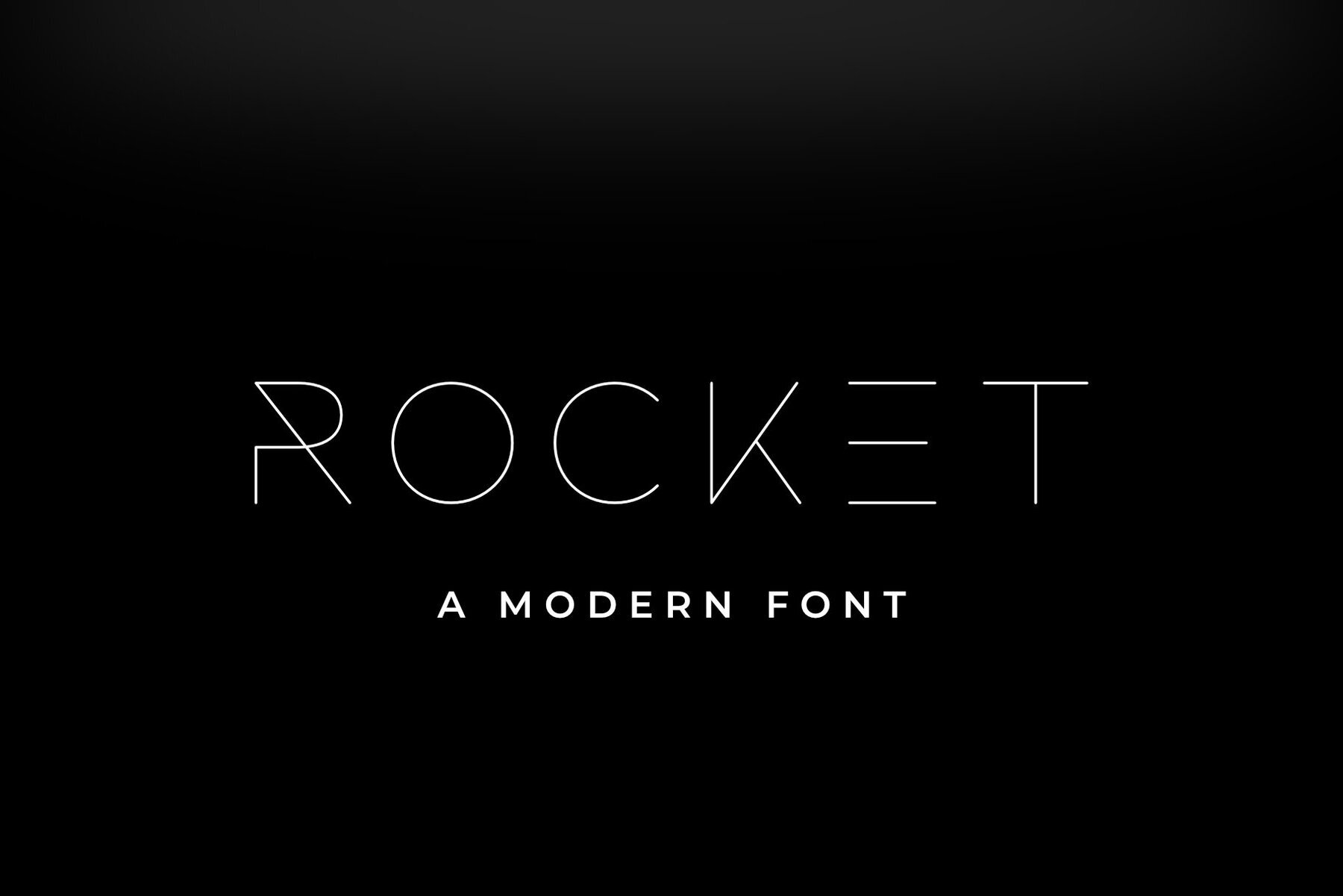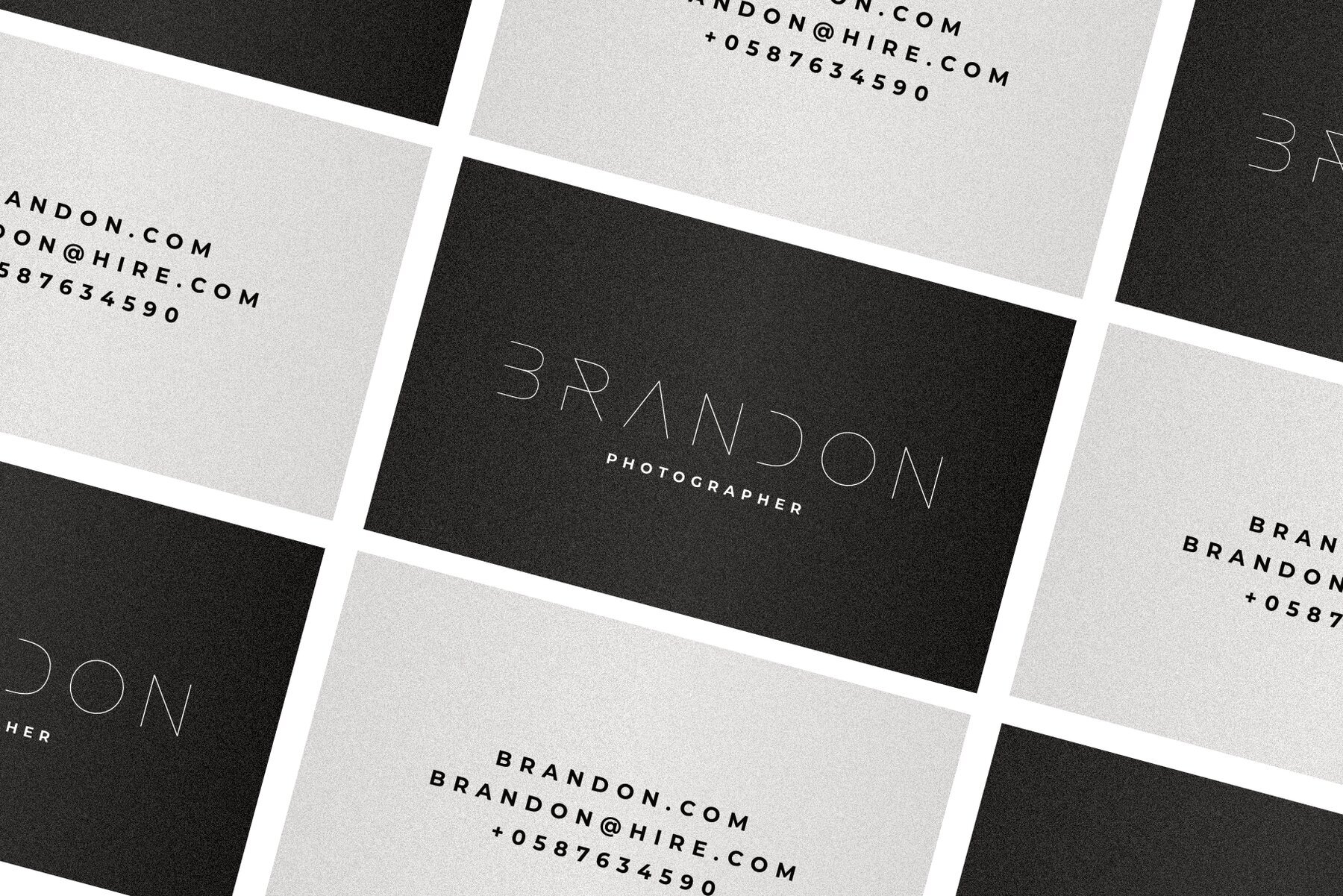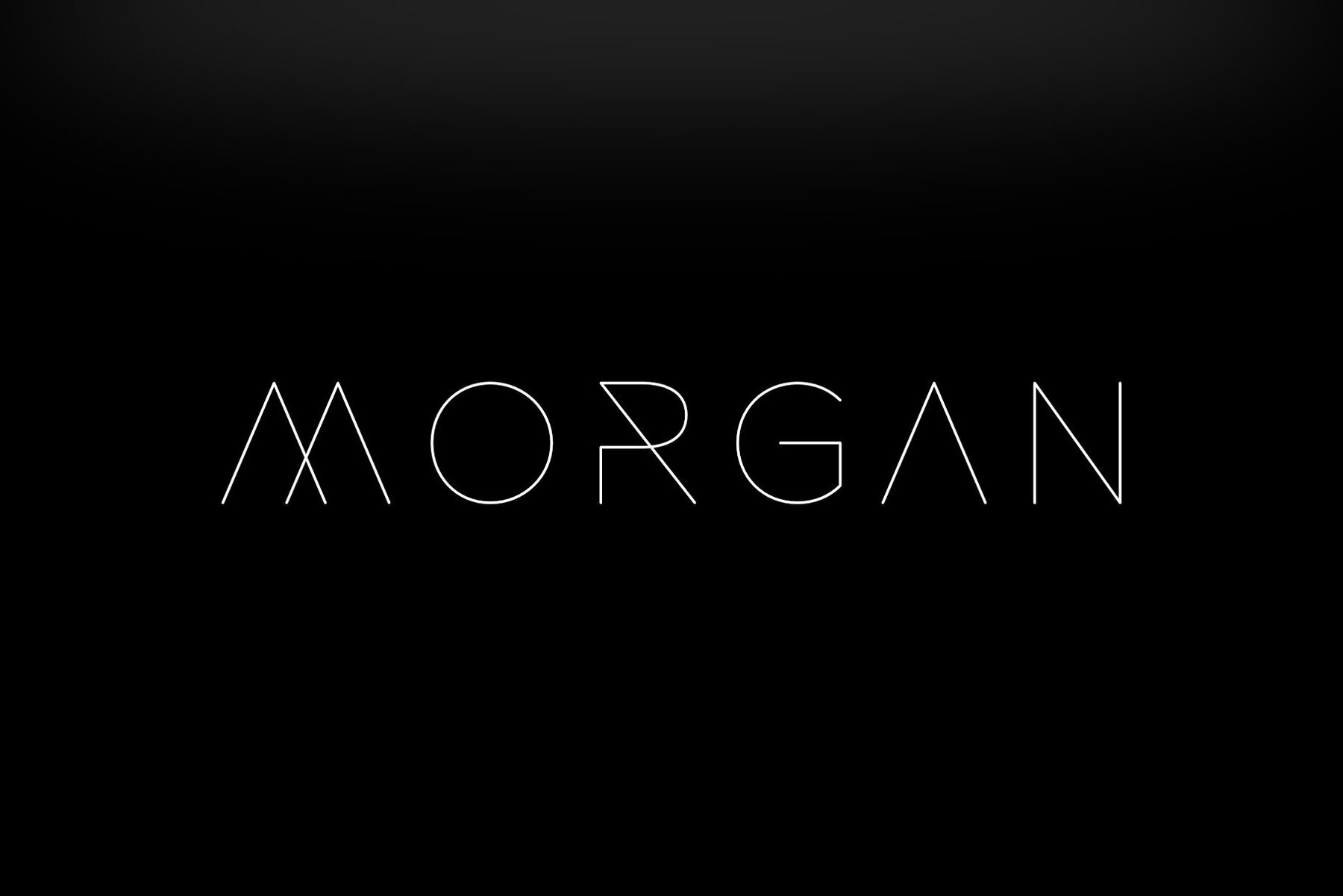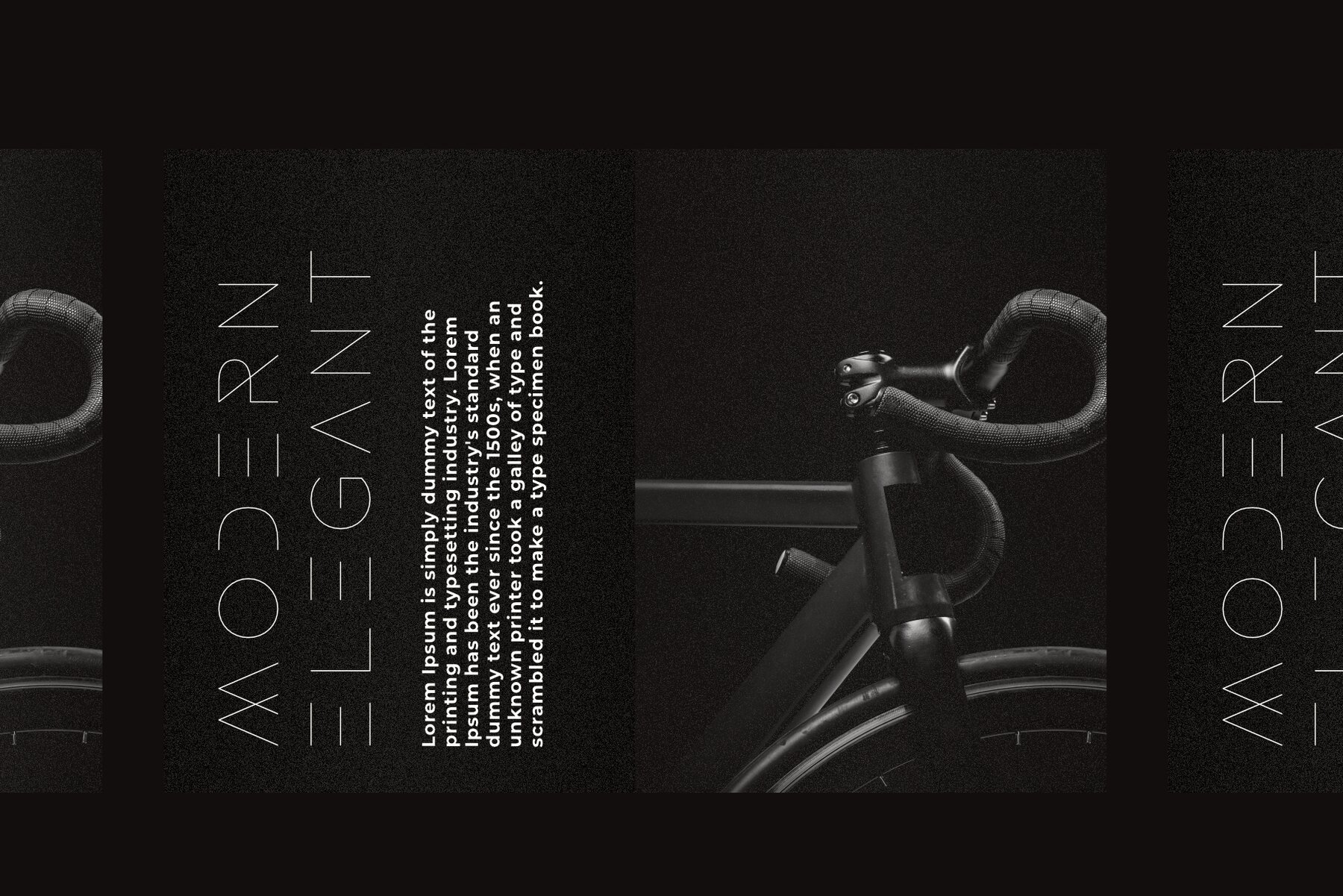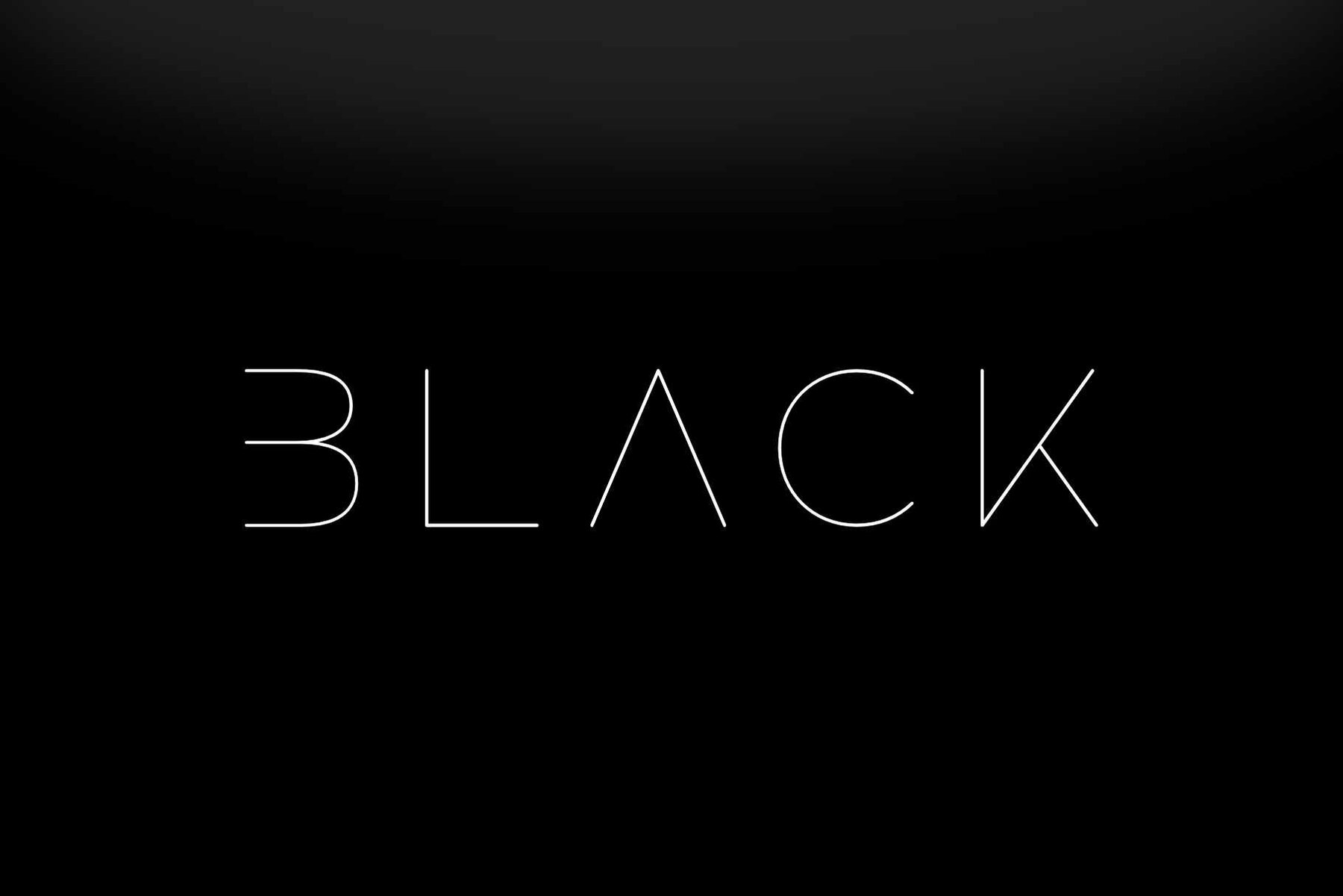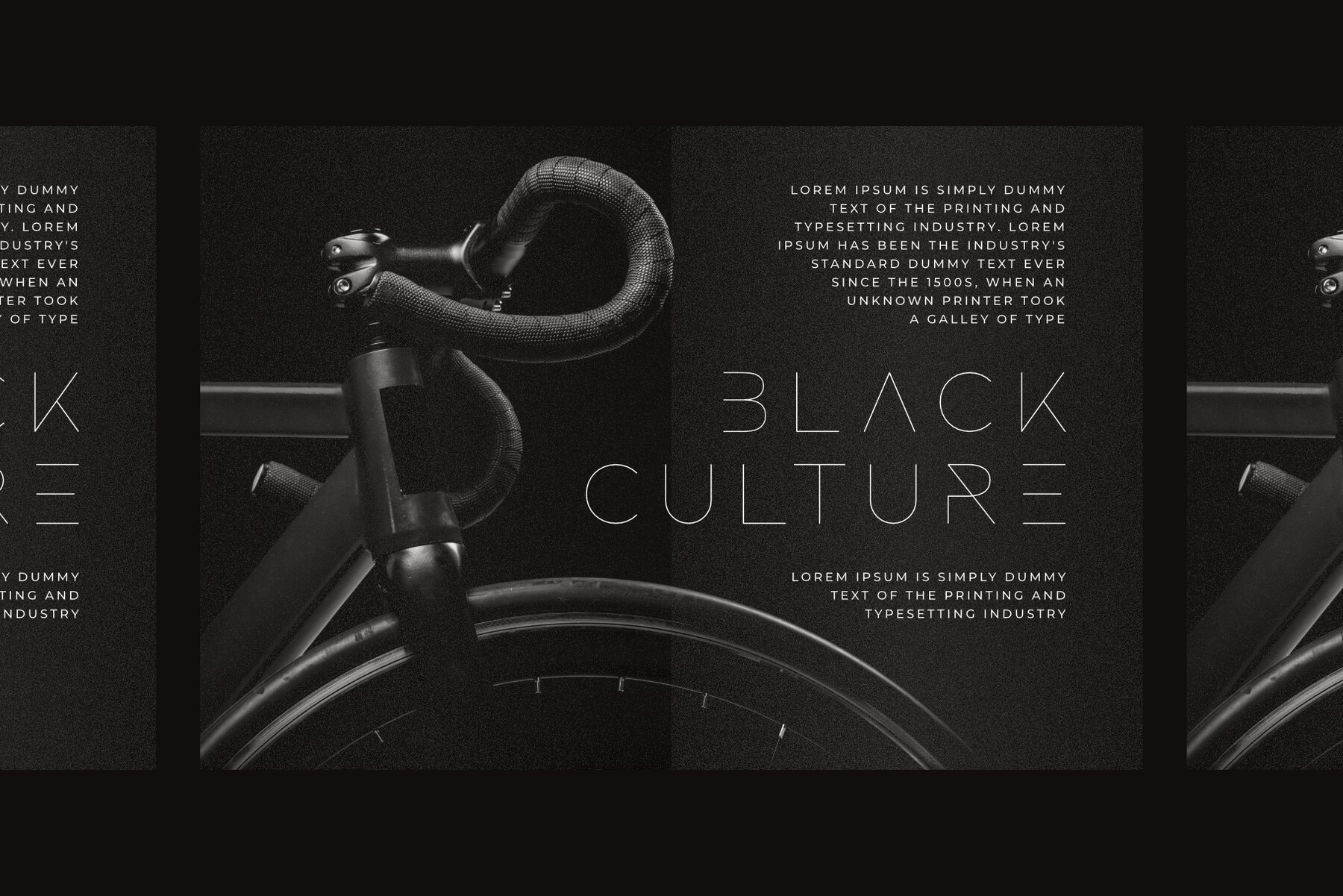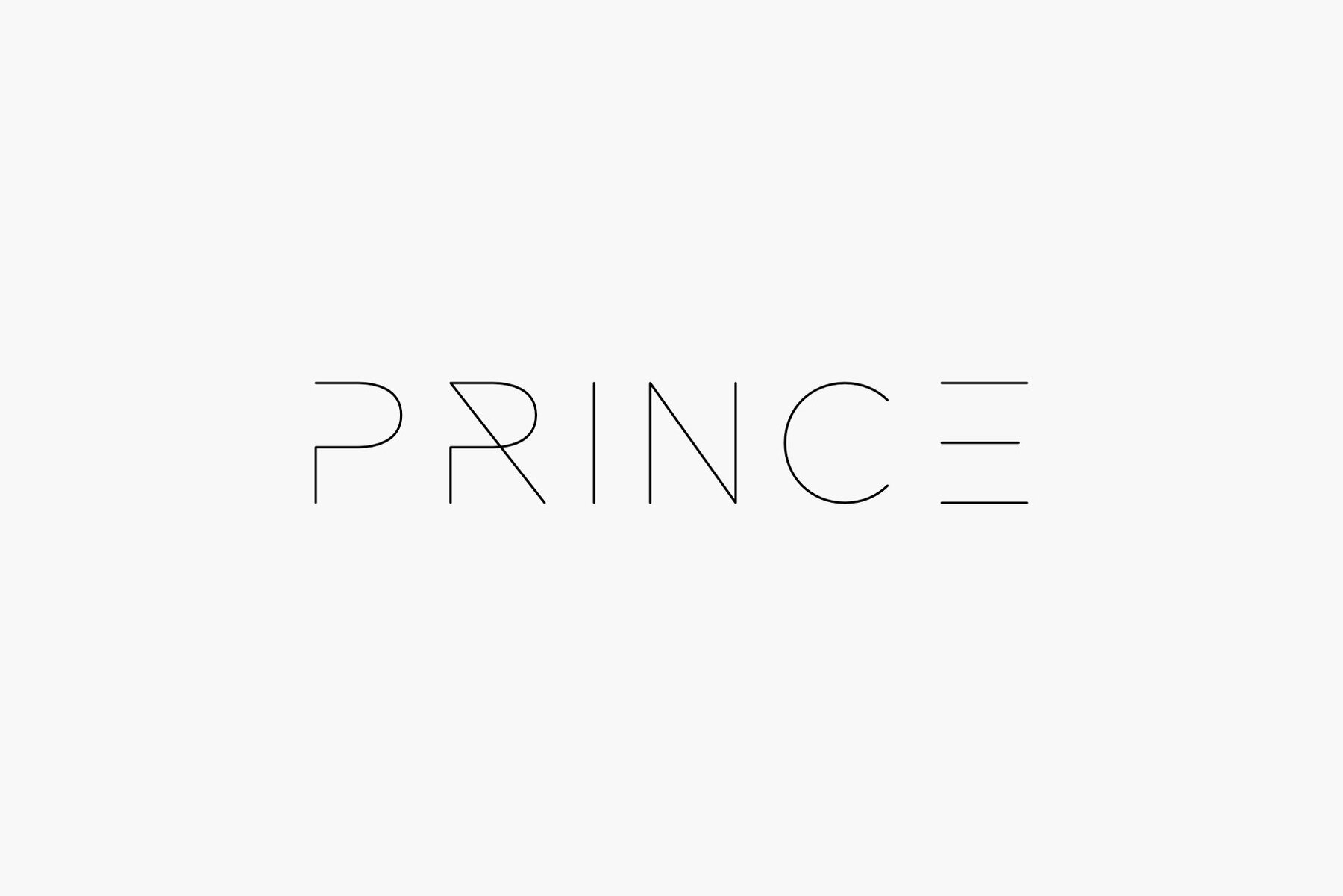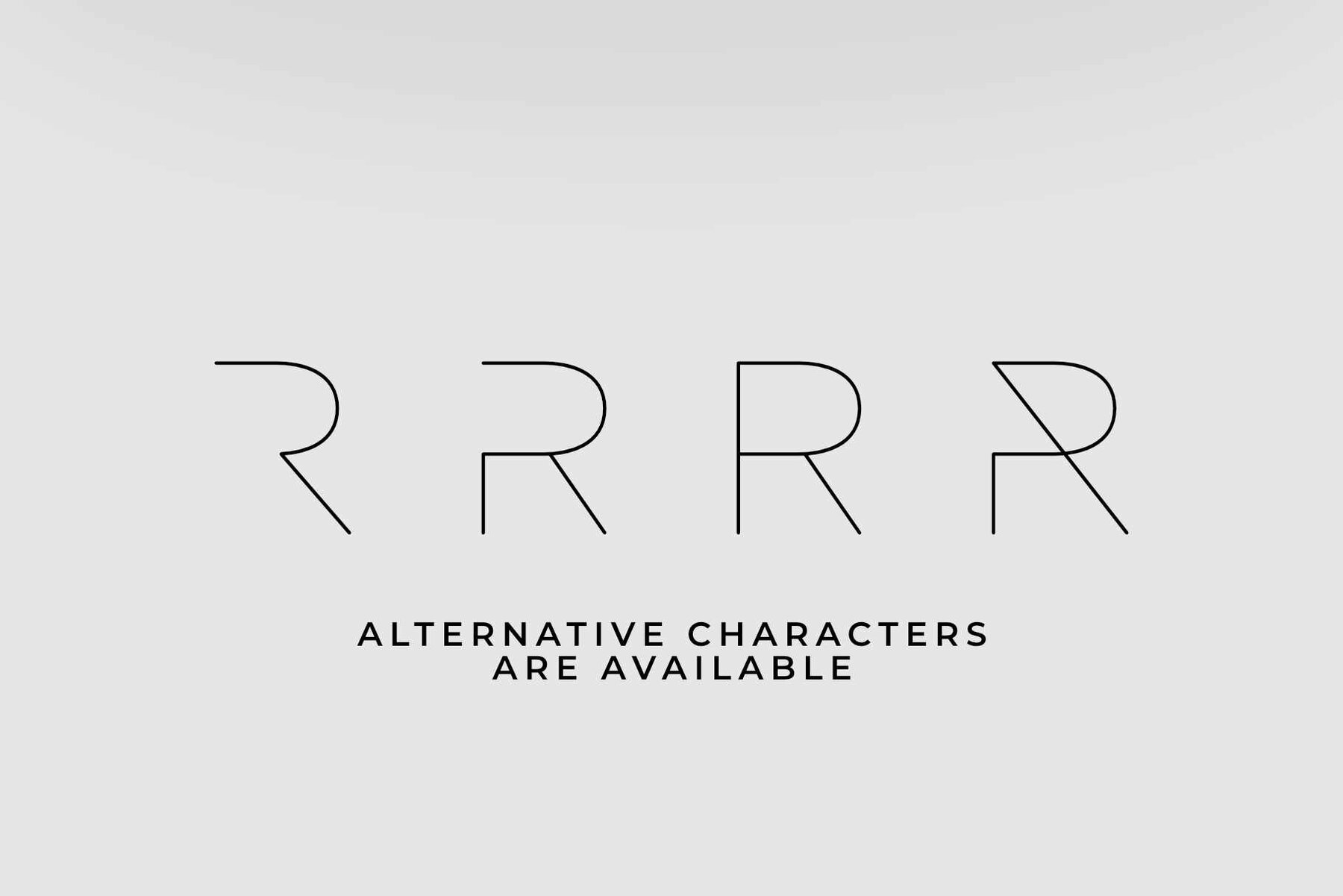
Rocket Wildness Font
Rocket Wildness is a font that marries modernity with elegance, providing a minimalist aesthetic that caters to a broad range of industry requirements. Its carefully crafted sans-serif design offers simplicity without sacrificing style, ensuring your projects maintain a contemporary edge. With its inclusion of stylistic alternative characters, Rocket Wildness allows for an interactive typographic experience. This feature invites users to explore and adapt their creative visions, enhancing the flexibility of design projects.Rocket Wildness: Minimalist Sans Serif for All Industries